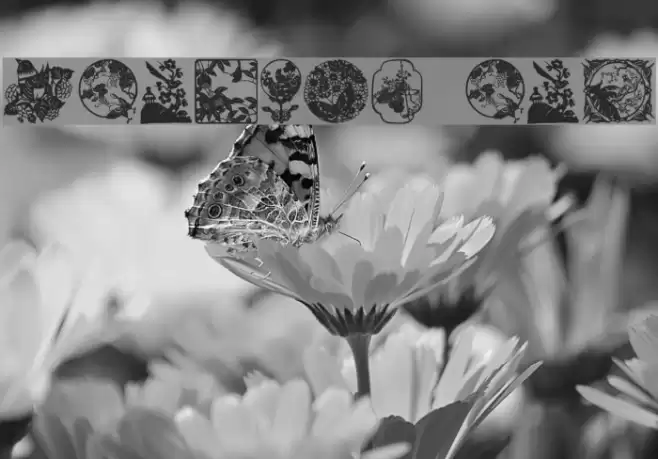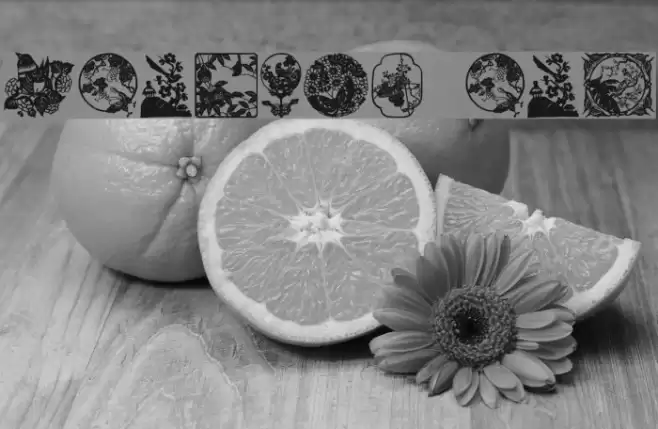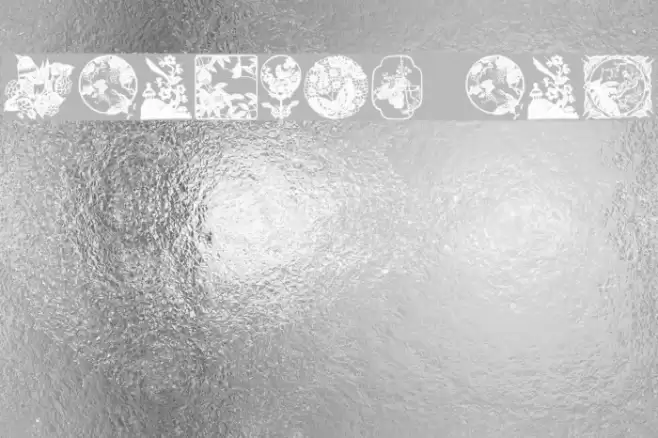
Oriental View Font
Oriental View Description
A decorative dingbat font featuring intricate oriental-inspired illustrations, including floral motifs, landscapes, and traditional patterns, each contained within circular, rectangular, or fan-shaped frames. The glyphs are highly detailed and ornamental, suitable for thematic embellishments rather than text.
Ornamental font with detailed oriental-themed illustrations from Dingbats fonts.
- Proposed Projects: Invitations, decorative borders, themed event materials, scrapbooking, packaging design, and art projects.
- Overall Style: Decorative, Oriental, Artistic
- Use Case: Decorative elements, Borders, Thematic accents